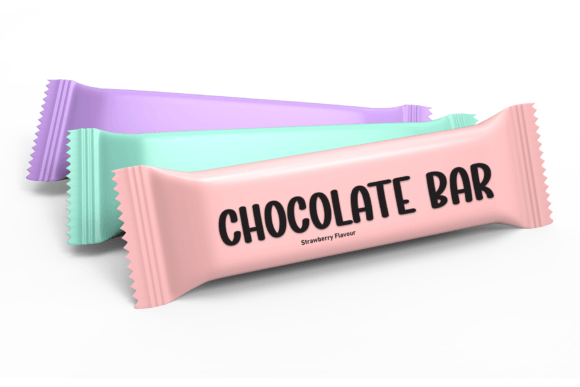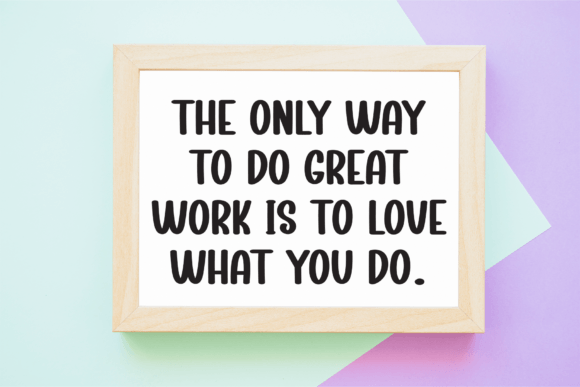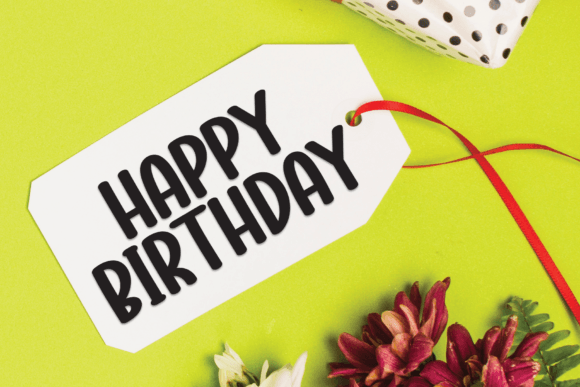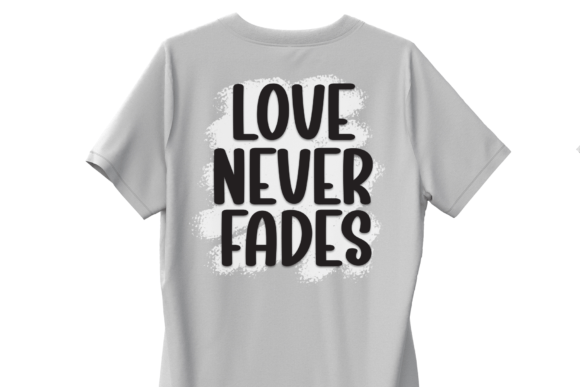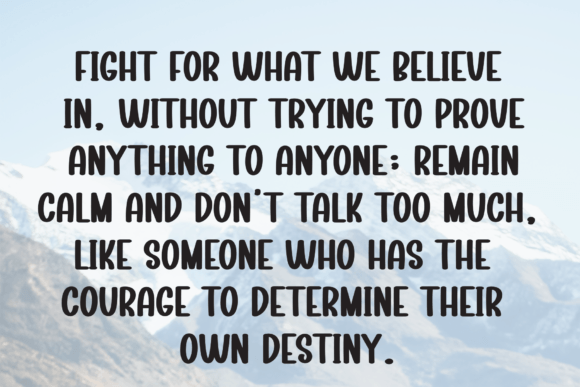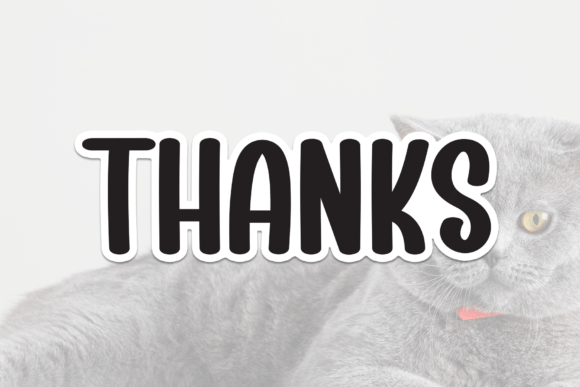
The Purrfect Font: A Deep Dive into Cute Cat Font
I’ll never forget the time I was working on a project for a client’s cat-themed cafe. I had all the design elements ready – the colors, the illustrations, the layout – but I was stuck on one thing: the font. I wanted something that would capture the playful, friendly vibe of the cafe, but everything I tried seemed either too boring or too over-the-top. That’s when I stumbled upon Cute Cat Font, and it was love at first sight! 💕
Cute Cat Font has quickly become one of my go-to fonts, and for good reason. Here’s what I love about it:
- ✨ Sweet and friendly vibe: Cute Cat Font has a natural, handwritten feel that’s perfect for designs that need a personal touch.
- ✅ Highly versatile: Whether you’re working on a kids’ project, a branding campaign, or a social media graphic, Cute Cat Font fits in seamlessly.
- 💫 Unique style: The font’s subtle quirks and imperfections make it stand out from more generic fonts.
Of course, no font is perfect, and Cute Cat Font has a few small quirks:
- 🤔 Limited use in very formal designs: While Cute Cat Font is incredibly versatile, it’s not the best fit for very formal or professional designs.
- ⚠️ Some letters may require manual kerning: As with any handwritten font, you may need to adjust the kerning on certain letters to get the best results.
The Story Behind Cute Cat Font
Cute Cat Font was designed with one goal in mind: to create a font that’s both sweet and versatile. The designer, a self-proclaimed cat lover, wanted to capture the playful, friendly spirit of our feline friends in a font that’s perfect for designs that need a personal touch. With its natural, handwritten feel and unique style, Cute Cat Font is quickly becoming a favorite among designers and crafters.
| Is Cute Cat Font available in different weights or styles? | Currently, Cute Cat Font is available in a single weight, but the designer may release additional styles in the future. |
| Can I use Cute Cat Font for kids’ projects and educational materials? | Cute Cat Font is a great fit for kids’ projects and educational materials, thanks to its playful and friendly vibe. |